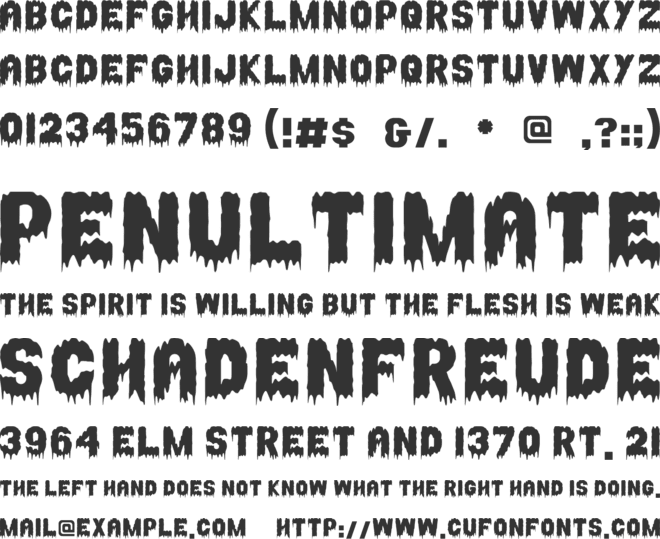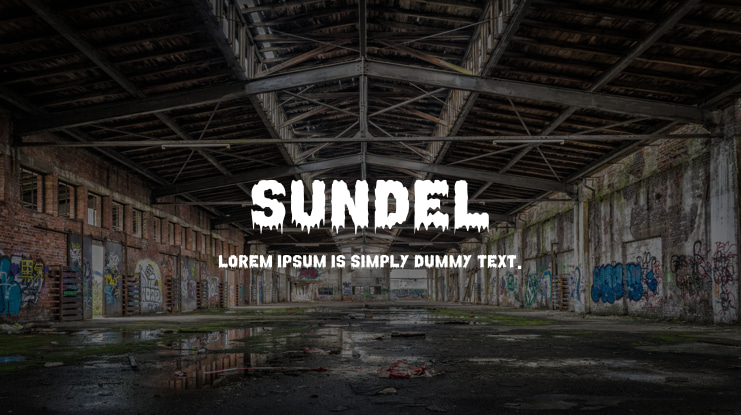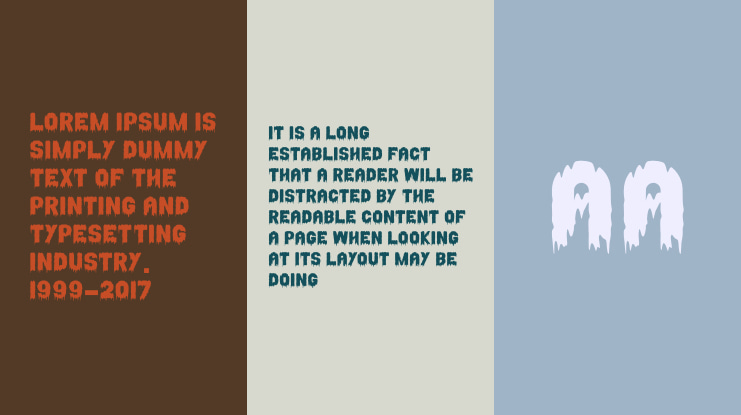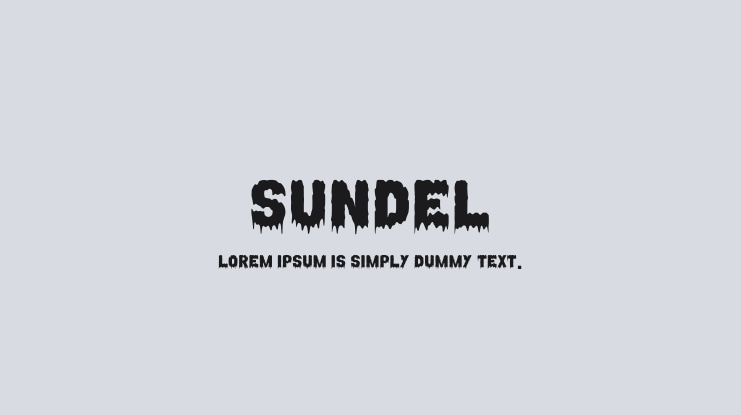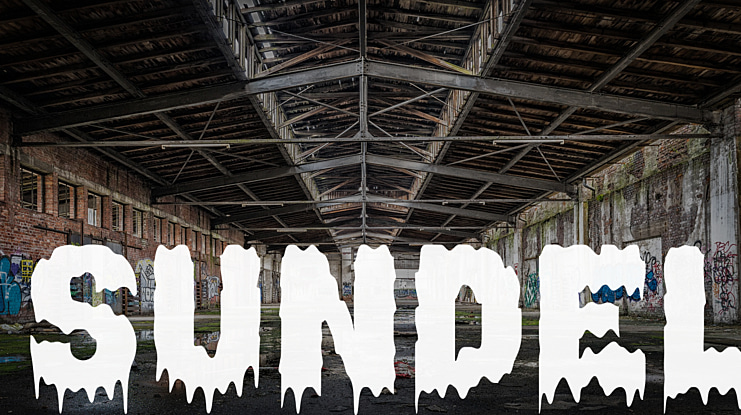
SUNDEL Font
**SUNDEL Font** - Modern Font is a bold and authentic display font. The font is suitable for any branding project like logo, t-shirt printing, Halloween event, and many more. outstanding in a wide range of contexts.
* Uppercase